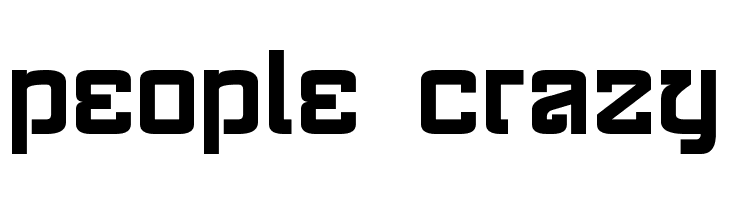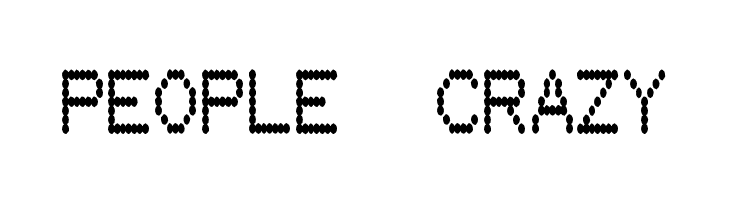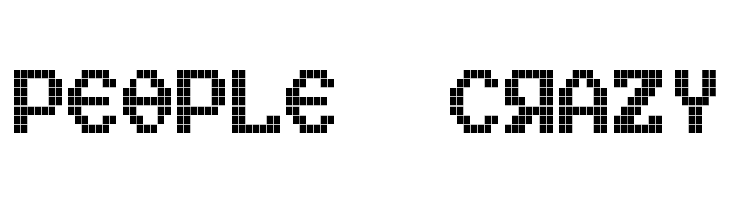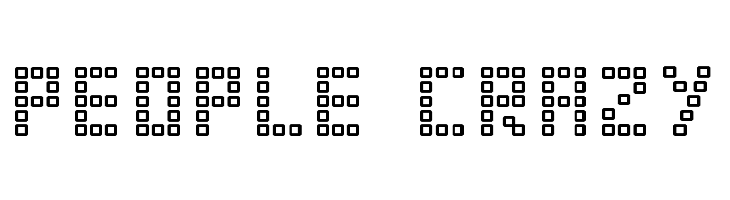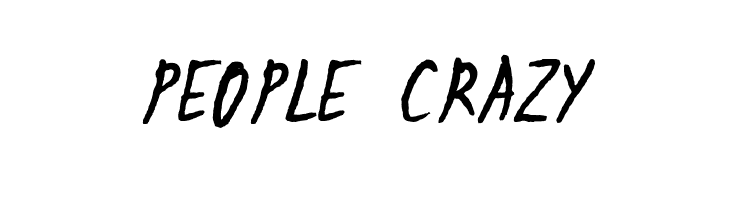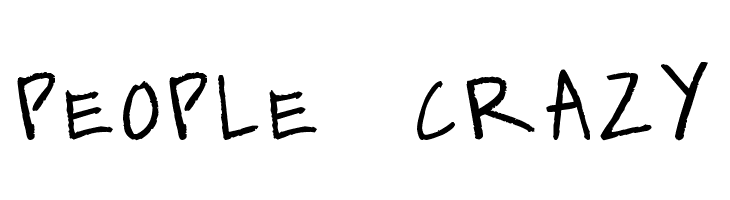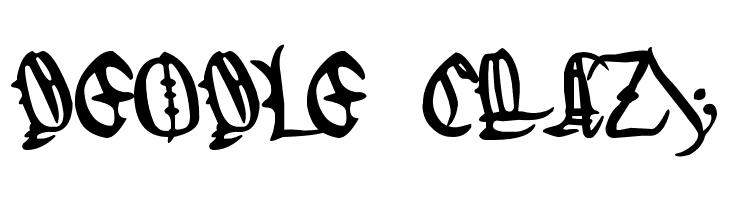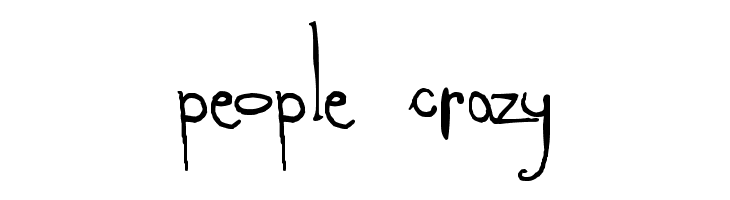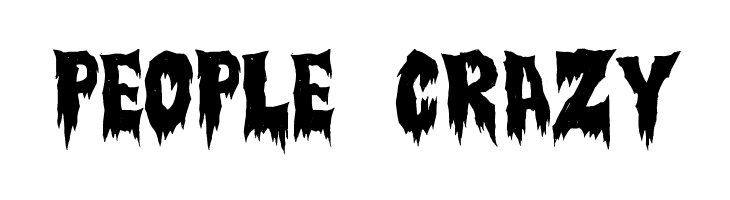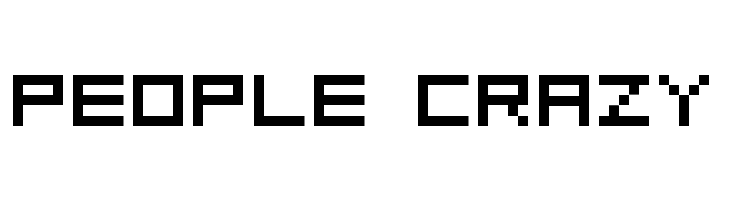
( Fonts by James Paul Fajardo http://www.myfonts.com/fonts/fajardo/james-paul/ )
A dynamic and expressive handwritten font with fluid, irregular strokes.
( Fonts by Tony O`Farrell )
A spooky, dripping font ideal for horror themes.
An abstract, graffiti-like font with chaotic and overlapping strokes.
( Fonts by Tony O`Farrell )
A bold, jagged, and aggressive font with a distressed, rebellious style.
( Fonts by Tony O`Farrell )
A bold, distressed gothic-style font with a dramatic and textured appearance.
( Fonts by www.vicfieger.com )
A bold, textured font with a grunge-like, dynamic style.
( Fonts by www.vicfieger.com )
A lively, cursive script font with smooth, flowing lines and a handwritten appearance.
( Fonts by Dennis Ludlow - Sharkshock Productions )
A bold, modern italic font with sharp angles and a dynamic style.
( Fonts by www.vicfieger.com )
A bold, geometric font with angular lines and a futuristic style.
( Fonts by www.vicfieger.com )
A bold, distressed font with a cracked, industrial appearance.
( Fonts by www.vicfieger.com )
A bold, rounded, and geometric font with a modern and futuristic style.
A lively and expressive handwritten font with fluid, cursive strokes.
( Fonts by www.vicfieger.com )
A bold, distressed font with jagged edges and dynamic style.
( Fonts by www.vicfieger.com )
A bold, distressed font with a rugged, weathered appearance.
( Fonts by Kimberly Geswein - kimberlygeswein.com )
( Fonts by www.vicfieger.com )
A modern, geometric font with rounded edges and a minimalist style.
( Fonts by www.vicfieger.com )
A bold, pixelated font inspired by classic arcade games.
( Fonts by www.vicfieger.com )
A bold, distressed font with a grunge aesthetic and rugged character.
( Fonts by www.vicfieger.com )
A bold, modern font with a unique horizontal striped pattern.
( Fonts by www.vicfieger.com )
A bold, slanted font with geometric shapes and strong vertical emphasis.
( Fonts by www.vicfieger.com )
A bold, geometric font with a modern and assertive style.
( Fonts by www.vicfieger.com )
A modern, dot-based font with a digital, grid-like appearance.
( Fonts by www.vicfieger.com )
A bold, textured font with a playful, distressed style.